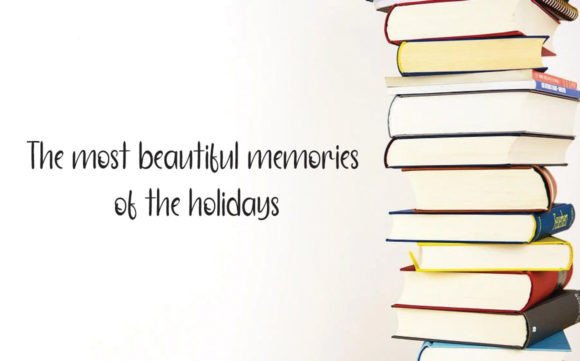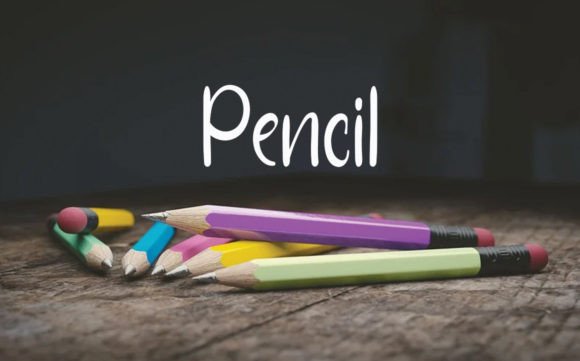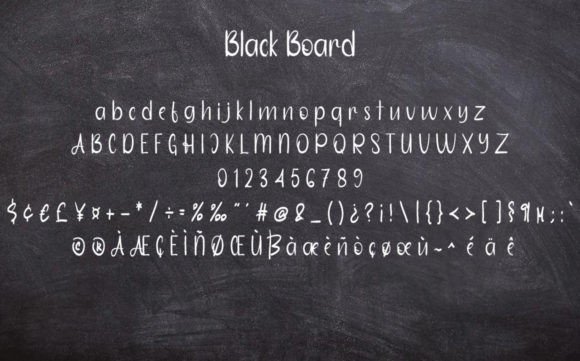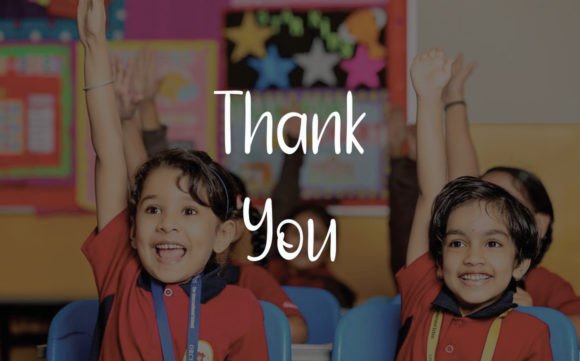
The Ultimate Companion for Your Back to School Projects
As the summer comes to an end and the excitement of a new school year begins, many of us are itching to dive into creative projects that capture the essence of this season. We’ve all been there – rummaging through our old notebooks, sketchbooks, and art supplies, trying to find the perfect inspiration to get us back into the zone.
That’s where the Back to School Font comes in – a cool, simple, and playful display font that’s designed to bring your designs to life. Whether you’re a student, a teacher, or simply someone who loves the back to school vibes, this font is the perfect companion for your creative endeavors. With its incredible versatility, it’s no wonder why the Back to School Font has become a valuable asset for designers looking to elevate their work to new heights.
Back to School Font Key Features
- Unique Characteristics: Back to School Font features a playful, handwritten style with a mix of cursive and print letterforms, making it perfect for educational and casual applications.
Back to School Font Review
Overall, I think the “Back to School Font” has some great potential, but it falls short in a few areas. Let’s start with what works well ✨.
- The font’s playful, handwritten feel is perfect for a back-to-school theme. It’s fun, youthful, and adds a touch of whimsy to any design.
- The font’s flexibility is great – it’s suitable for a wide range of applications, from posters to social media graphics.
- The font’s scalability is also a plus – it looks great both large and small, making it easy to use in different contexts.
Now, let’s talk about the limitations ⚠️.
- The font’s design can be a bit too simplistic for some tastes. While its playfulness is a strength, it can also come across as juvenile in some cases.
- The font’s legibility can be a bit of an issue, particularly at smaller sizes. This can make it difficult to read, especially for people with visual impairments.
- The font’s lack of bold and italic weights can limit its usability in certain situations.
Overall, I think the “Back to School Font” is a solid choice for designers looking for a fun, youthful font for a back-to-school theme. While it has some limitations, its strengths outweigh its weaknesses in many cases.
Use the Back to School font for themed projects, such as school flyers, posters, or social media graphics. It’s also great for creating a fun and playful atmosphere for back to school events or parties. Experiment with different font sizes and colors to add visual interest.
The Back to School font is perfect for creating:
– School flyers and posters
– Party invitations
– Themed decorations